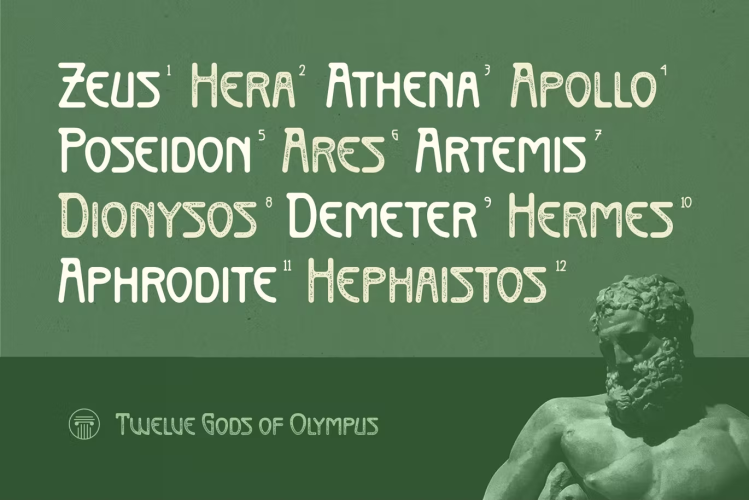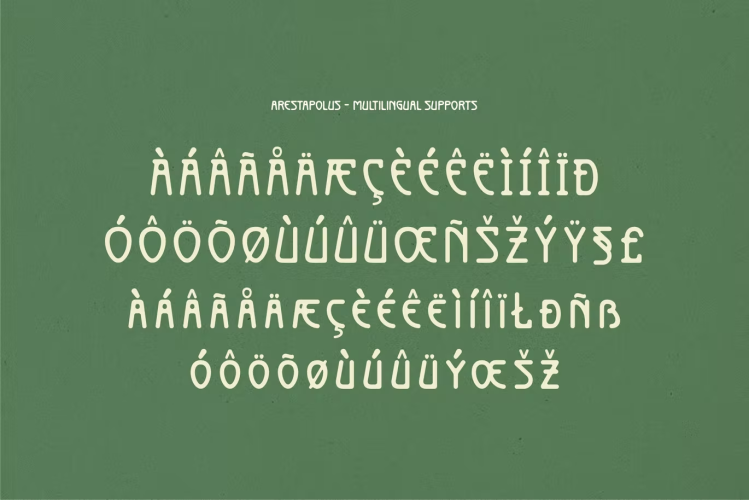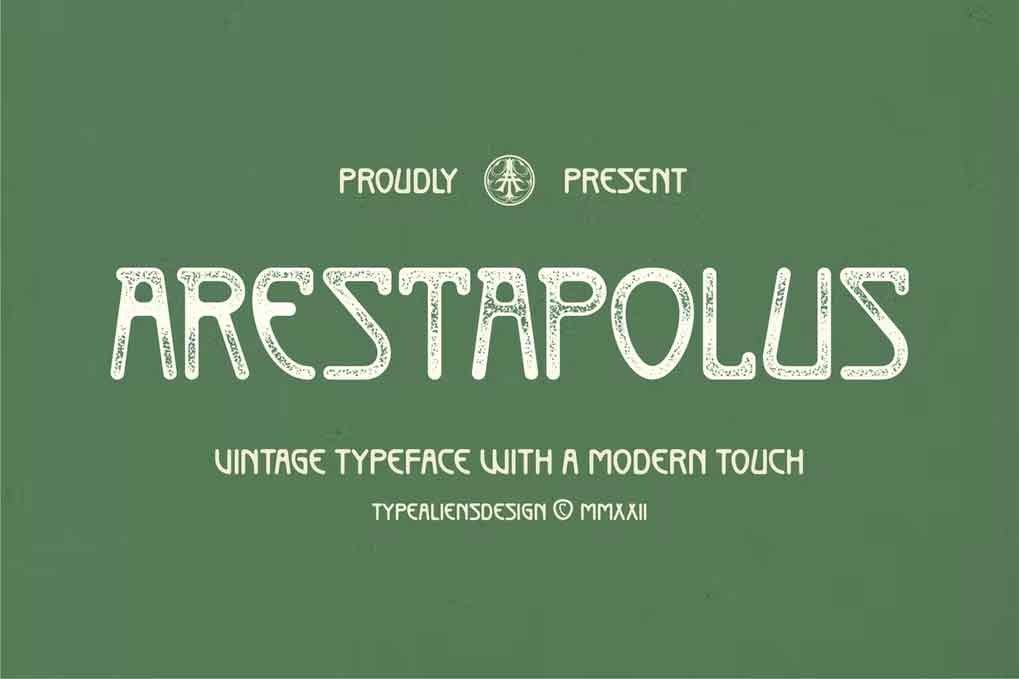
Arestapolus Font
ARESTAPOLUS is a vintage font with a slightly modern style, a font that is primarily a sans serif font with rounded corners. Because it has a modern touch, besides being suitable for vintage designs, it can also be used for modern designs or text that is not too long.
This font is an allcaps font with a lowercase slightly lower than the uppercase. This unique font is great for simple nuanced designs or can also be used to support artistic designs.
Arestapolus Font is a Sans Serif Fonts font that brings a professional and versatile look to your projects. ARESTAPOLUS  is a vintage font with a slightly modern style, a font that is primarily a sans serif font with rounded corners.